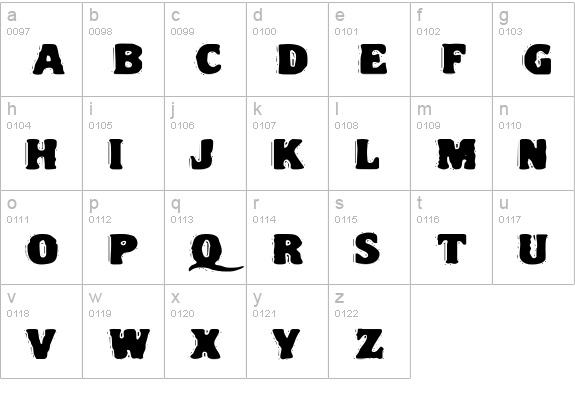
VTC NightOfTheDrippyDeadFatCaps Font Details
Introducing VTC NightOfTheDrippyDeadFatCaps, a captivating and hauntingly beautiful font that will transport you into the eerie realm of the supernatural. This font combines elements of horror and darkness with a touch of whimsy to create a truly unique and captivating typography experience. The NightOfTheDrippyDeadFatCaps font features bold and dripping letters that seem to come alive, giving your designs a macabre and mysterious vibe. Each letter is meticulously crafted to evoke a sense of otherworldly presence, making it perfect for Halloween-themed projects, horror movie posters, album covers, and more. With its distinctive style and attention to detail, VTC NightOfTheDrippyDeadFatCaps will surely leave a lasting impression on anyone who encounters it. Its versatility allows it to be used in a wide range of creative projects, from graphic design to branding and beyond. But what's even more exciting is that this font is freely available to download at FontsMarket.com. Yes, you heard it right – you can unleash the power of NightOfTheDrippyDeadFatCaps in your designs without spending a penny. Whether you're a professional designer or a hobbyist, this font is an invaluable addition to your toolkit. So don't let this opportunity slip away. Embrace the darkness and download VTC NightOfTheDrippyDeadFatCaps today from FontsMarket.com. Let your creativity flow and watch as your designs come to life with the haunting elegance of this mesmerizing font.